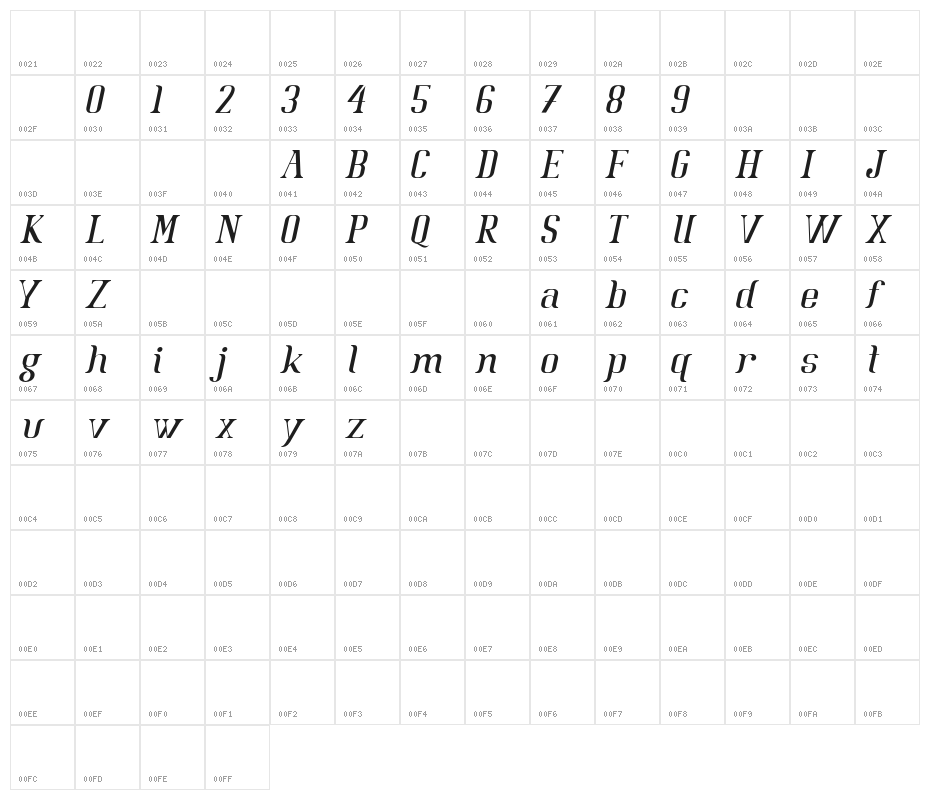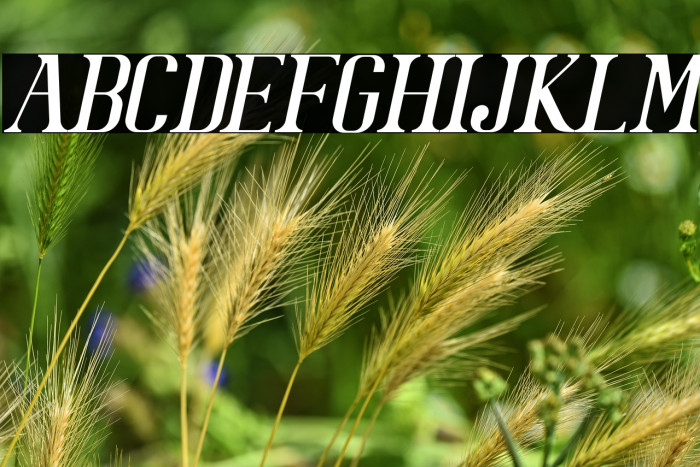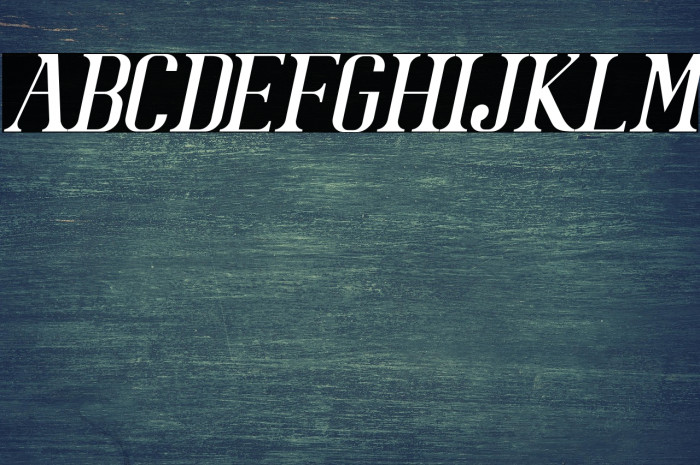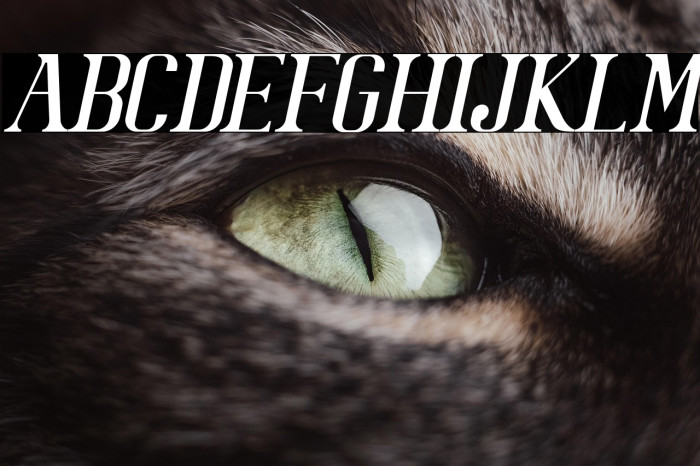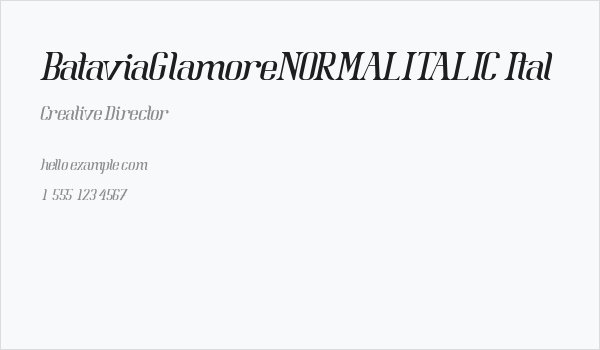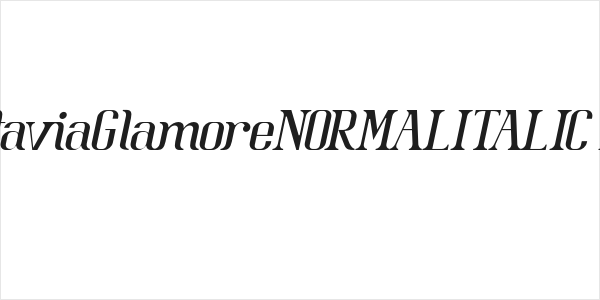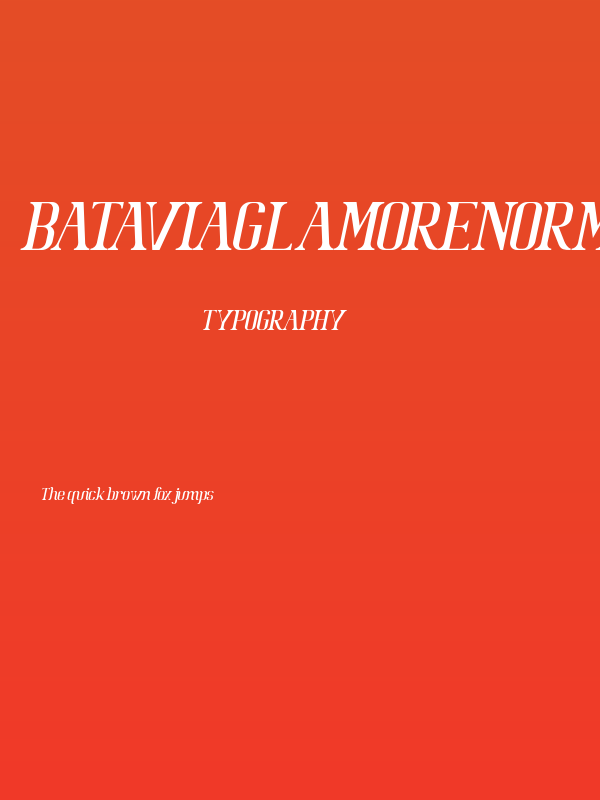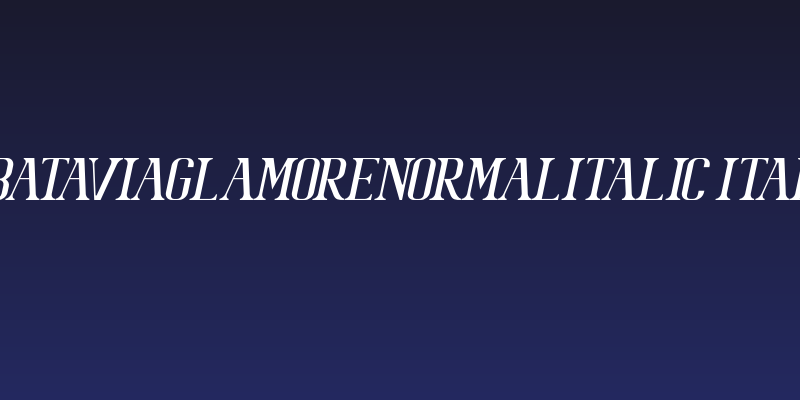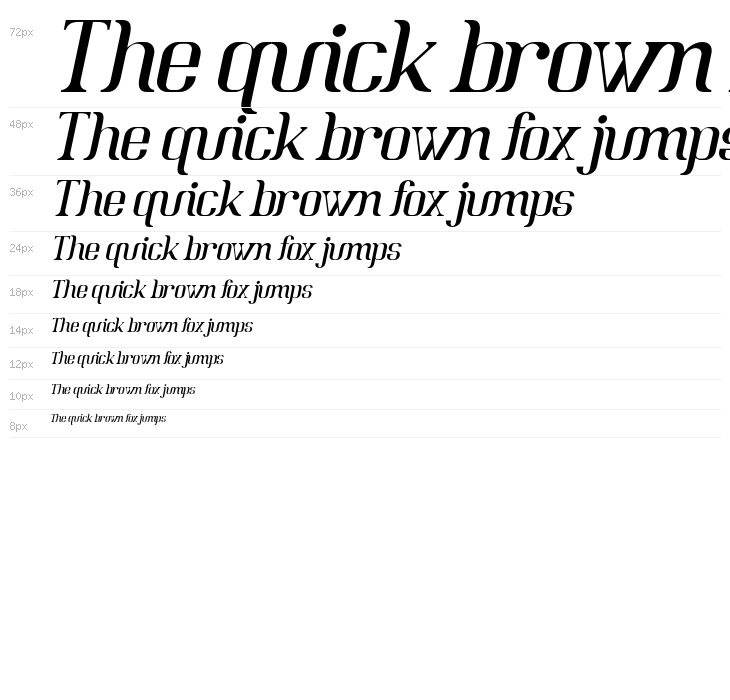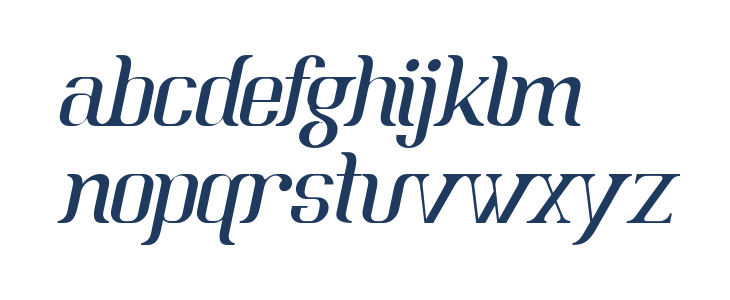
BataviaGlamoreNORMALITALIC-Ital Font
BataviaGlamoreNORMALITALIC-Ital Description
This font exudes a sophisticated elegance with its italicized form, characterized by a smooth, flowing style that combines both modern and classic elements. The uppercase letters are tall and slightly condensed, giving a sense of grandeur and formality. The lowercase letters maintain a consistent flow, with gentle curves and a slight slant that adds to the overall dynamic appearance. The numerals are well-proportioned and align seamlessly with the alphabetic characters, ensuring readability and aesthetic harmony. The font's stroke contrast is medium, providing a balanced visual weight that enhances its legibility while maintaining a stylish flair.
| Overall Style | Modern Classic |
| Proposed Projects | Ideal for luxury branding, elegant invitations, editorial design, and high-end product packaging. |